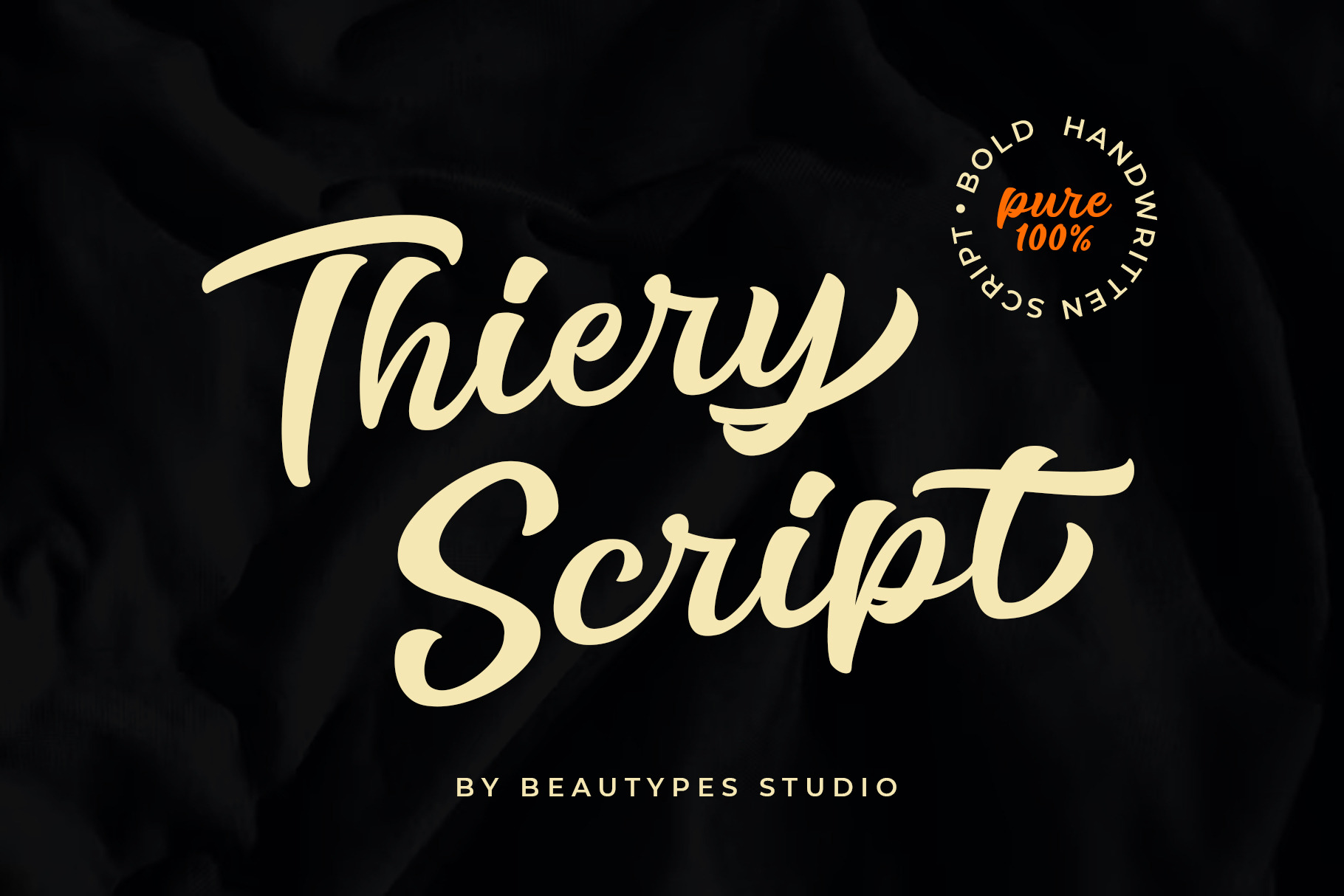
Thiery Script - Bold Font
Thiery Script is a stunning script font, an amazing option for branding and logotype projects. This font has an impression of modern, trendy, and elegant design. The classic feel is really perfect for you who needs a typeface for especially logotype, apparel, invitation, branding, packaging, advertising etc. This typeface is comes in uppercase, lowercase, punctuations, symbols & numerals, stylistic set alternate, ligatures, etc also support multilingual and already PUA encoded.